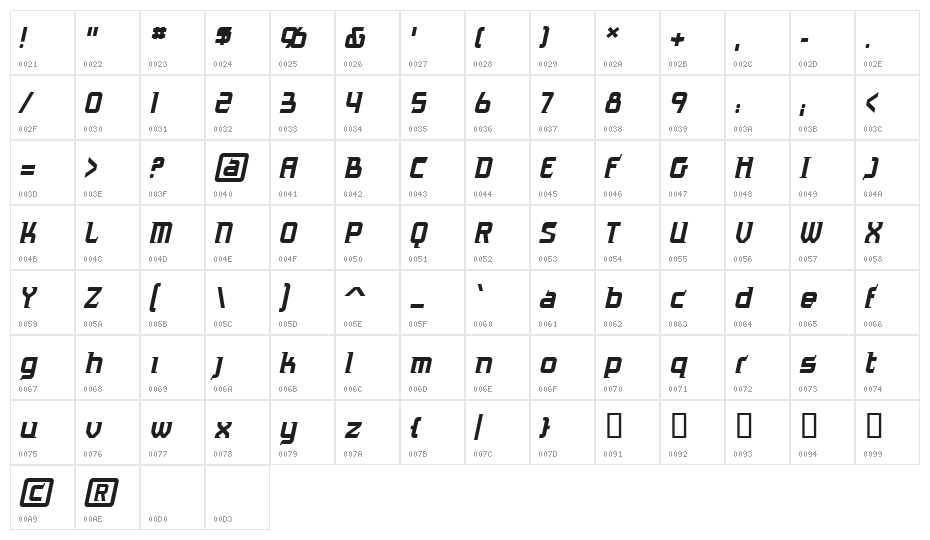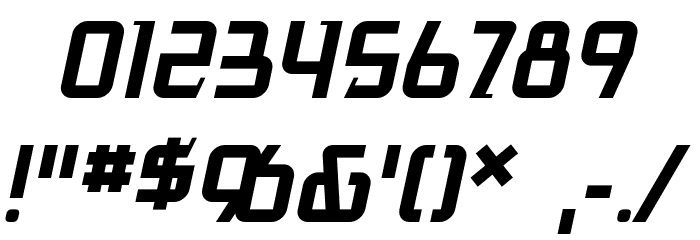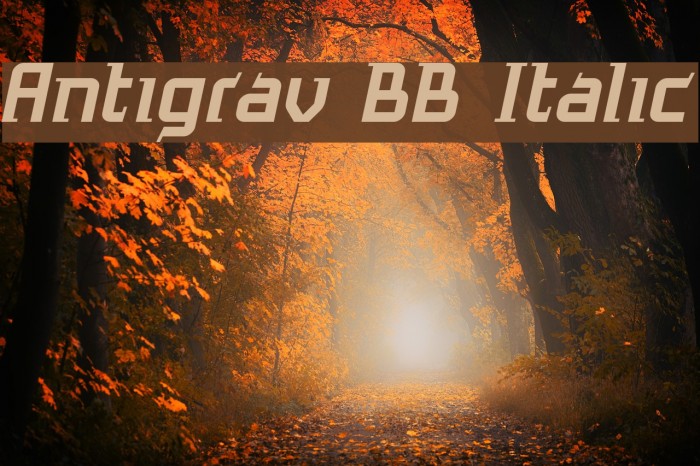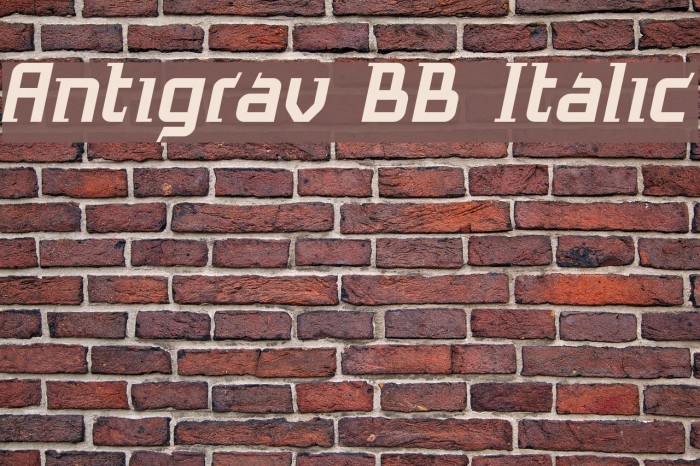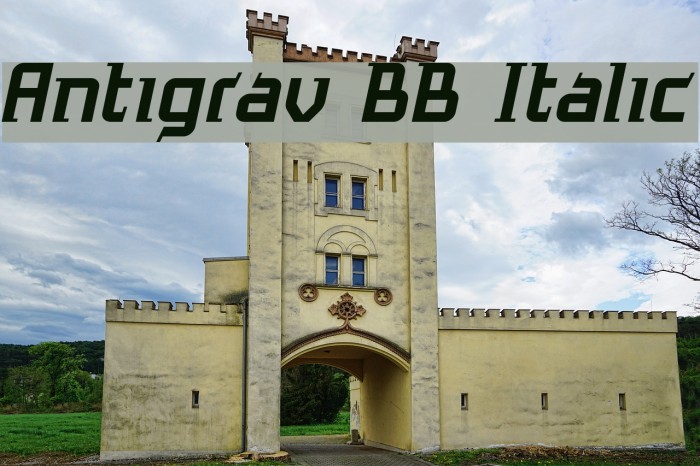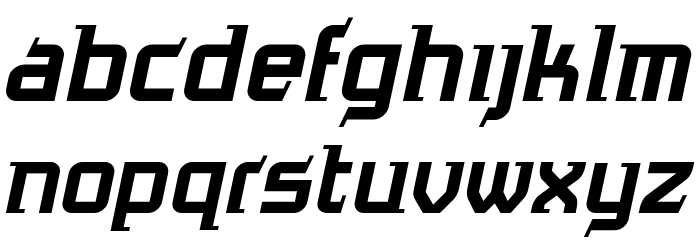
Antigrav BB Italic Font
Antigrav BB Italic Description
This font features a futuristic and dynamic style with a distinct italic slant, giving it a sense of motion and speed. The characters are bold and angular, with sharp edges and a geometric structure that conveys a modern and tech-oriented aesthetic. The uppercase and lowercase letters maintain a consistent design, with the lowercase mirroring the uppercase in style but with a slightly more compact form. The numerals are equally bold and follow the same angular design, ensuring readability and consistency across all characters. Special characters are designed to match the overall theme, making this font suitable for projects that require a modern and energetic look.